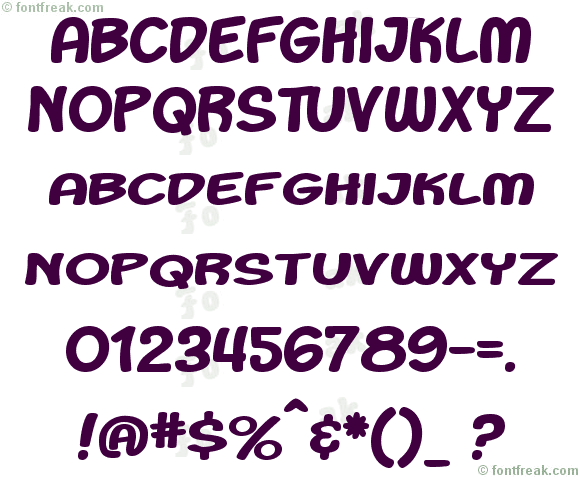
Eight Years Later
About Eight Years Later
The Eight Years Later font, created by Rich Gast, is a distinctive display typeface that combines a playful yet refined aesthetic, making it a versatile choice for various design projects. This font features a casual, handwritten style, characterized by smooth, flowing strokes that convey a sense of warmth and approachability. The stroke weight is consistent, lending an air of elegance while the slightly irregular shapes add a touch of personality. The spacing between the letters is well-balanced, ensuring readability while maintaining a relaxed feel.
Eight Years Later is particularly well-suited for creative applications such as wedding invitations, where its charming style can enhance the theme of romance and celebration. It can also be effectively used in movie posters, giving a unique flair that captures attention and draws viewers in. Additionally, this font makes a great choice for restaurant menus, enabling establishments to present their offerings in a visually appealing way that reflects their brand identity. Content creators and graphic designers will find it useful for social media graphics, helping to create memorable visuals that resonate with audiences.
What sets the Eight Years Later font apart is its ability to blend casual charm with professional appeal. This makes it an ideal choice for anyone seeking to make a statement with their typography. Whether you're crafting invitations, promotional materials, or digital content, the Eight Years Later font free download offers a unique opportunity to elevate your designs and engage your audience effectively.